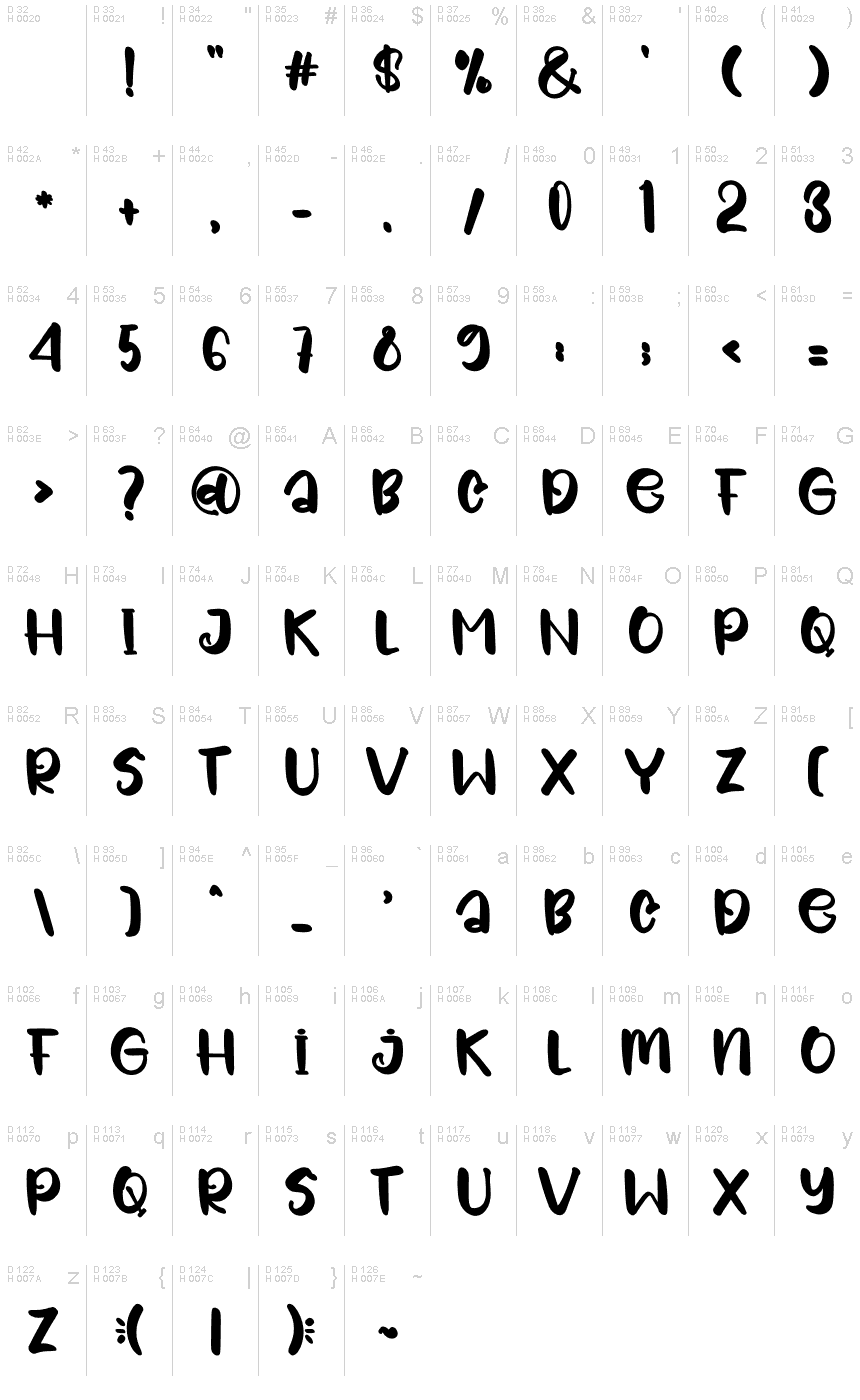
Space Holiday
The Space Holiday font, designed by Inermedia Studio, is a bold, cartoon-style display font perfect for projects that need an eye-catching and playful touch. Use this font for comic books, logos, children's books, and more!